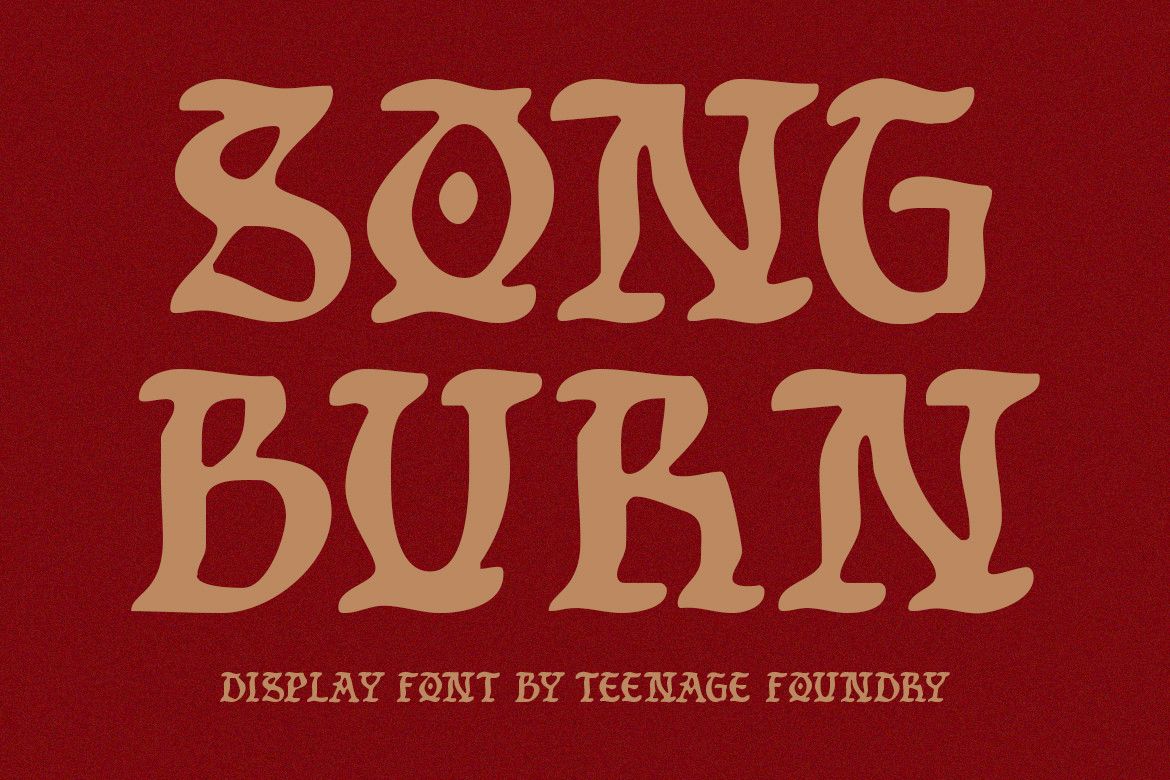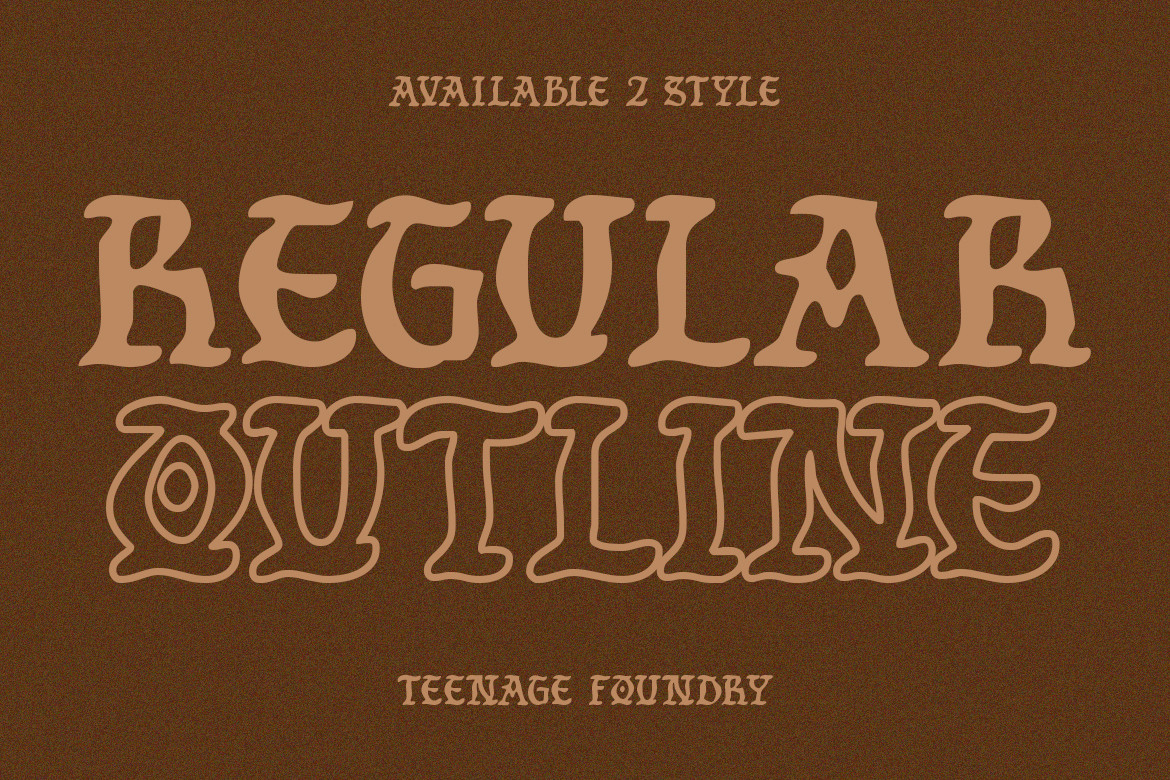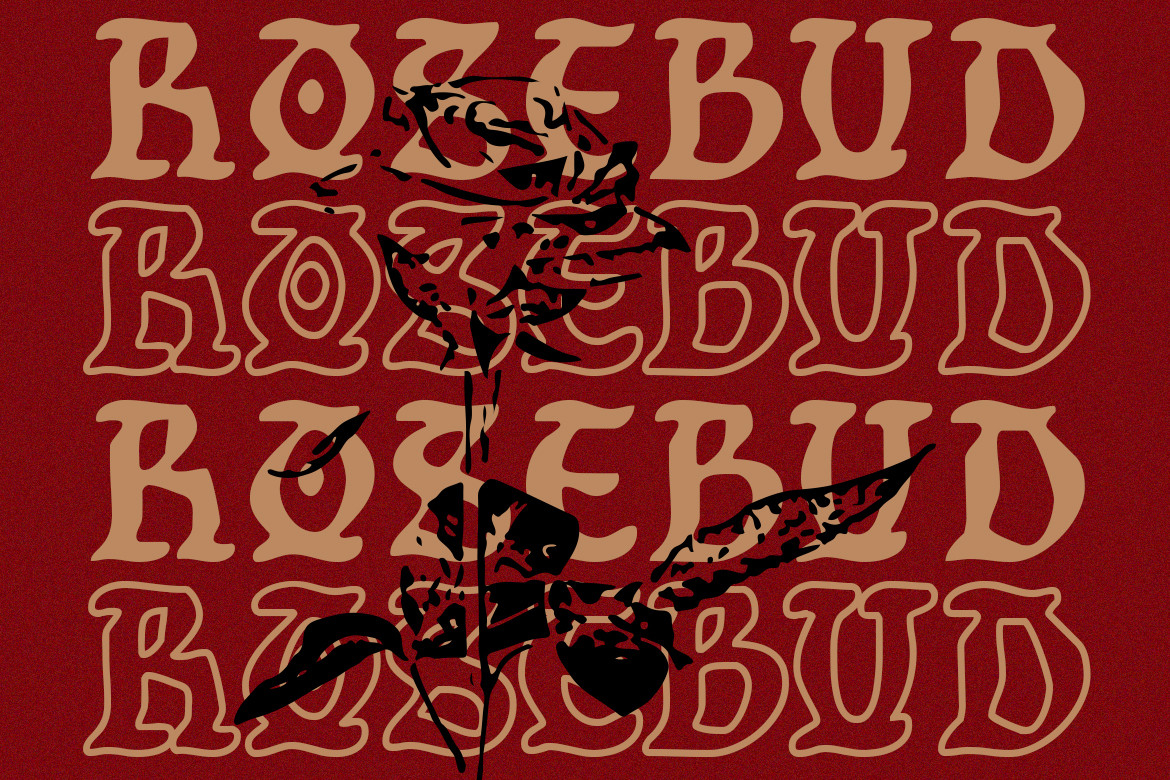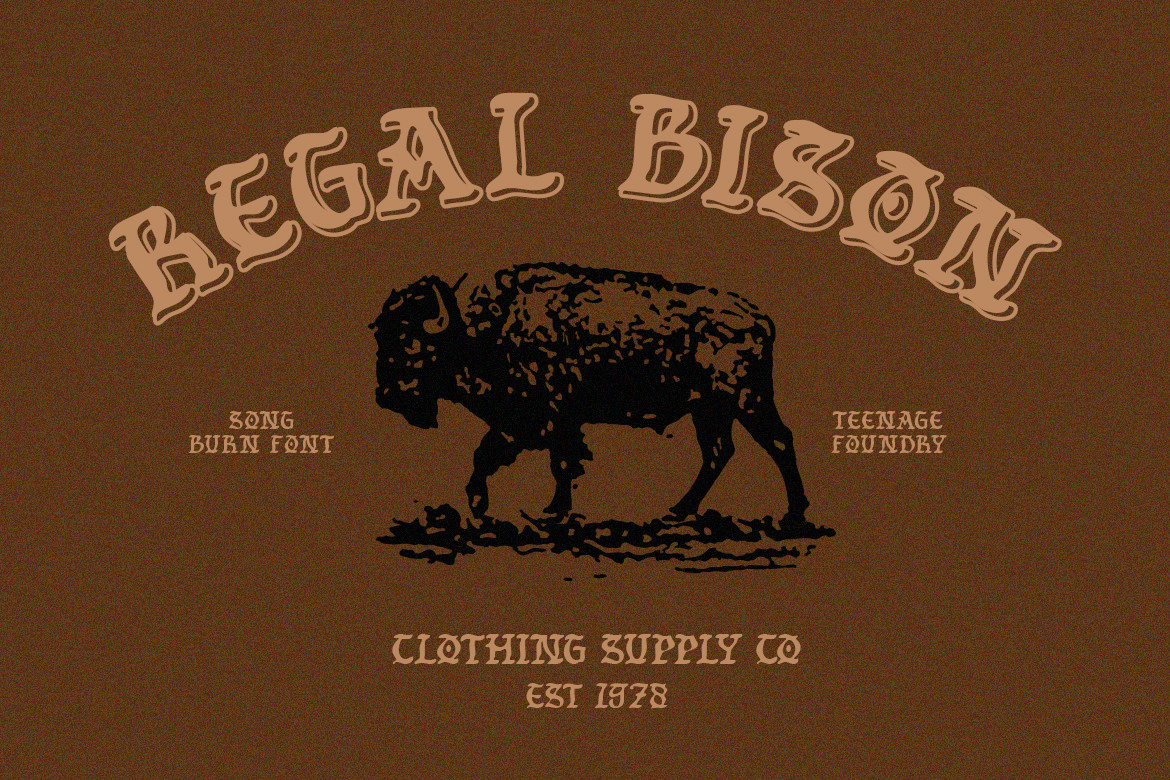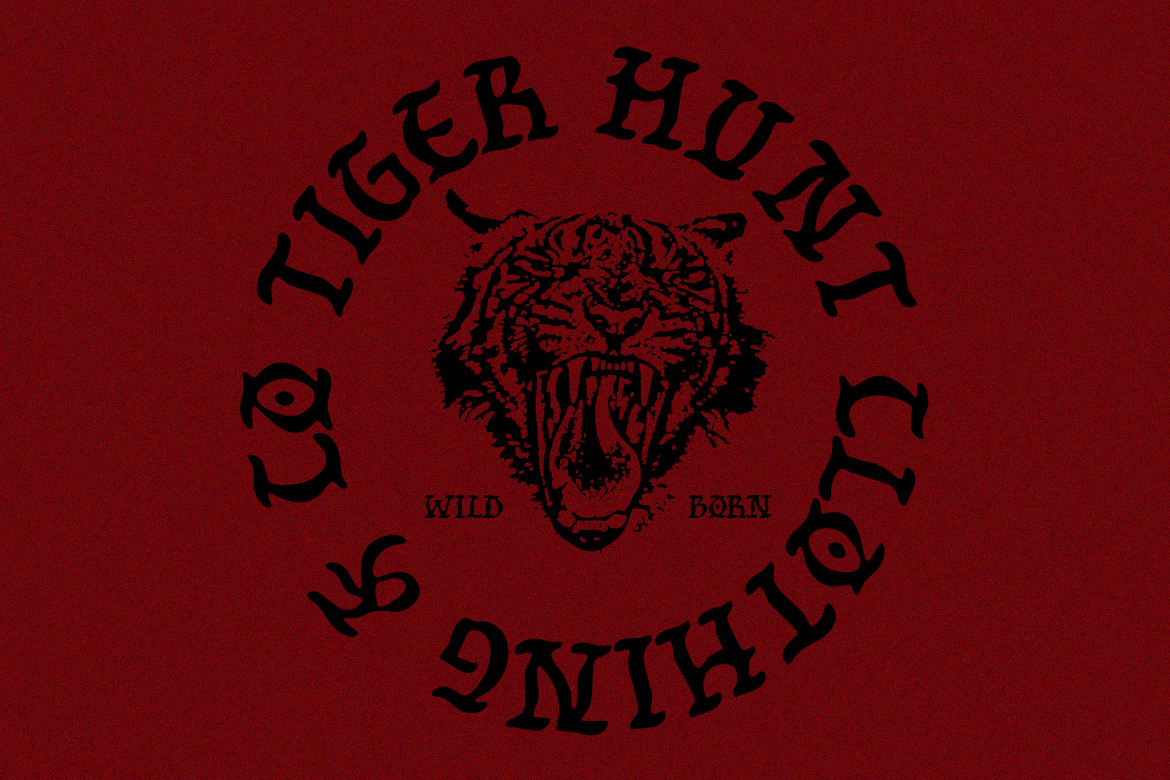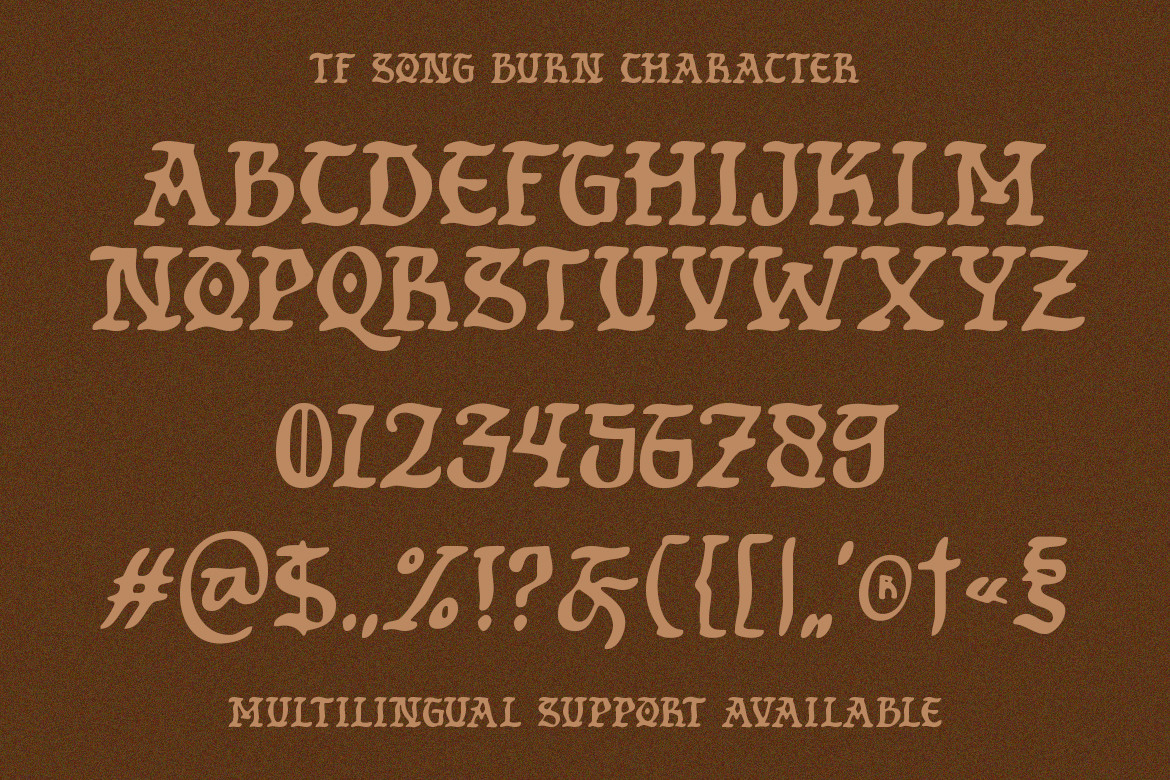
Tf Song Burn Font
About Tf Song Burn Font
TF Song Burn is a a striking and unique blackletter font that is sure to bring a touch of old-world charm to your projects. It is perfect for designs that require a bold and imposing typography.